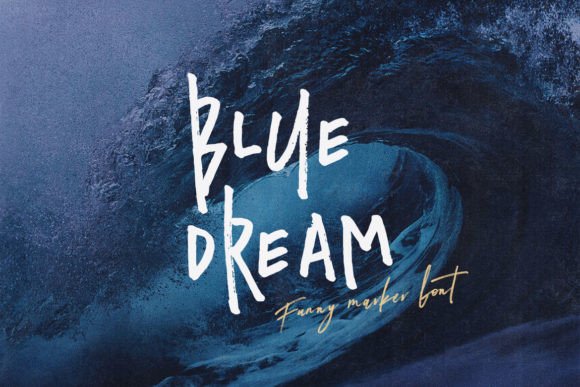
Introducing Blue Dream Font: The Ultimate Font for Unleashing Your Artistic Creativity
Prepare to dive into a world of boundless creativity with Blue Dream Font, the sans serif masterpiece crafted by JumboDesign. This captivating font is a true testament to the power of typography, boasting a unique style that will transform your designs into captivating works of art.
Escape the mundane and embrace the extraordinary with Blue Dream Font. Its playful and funky vibe is an instant mood booster, injecting life and energy into every project you undertake. Whether you're creating grunge designs that ooze attitude or artistic masterpieces that speak to the soul, Blue Dream Font will elevate your vision and leave your audience spellbound.
With its inherent versatility, Blue Dream Font seamlessly adapts to a wide range of creative endeavors. From T-shirts that radiate personality to posters that demand attention, this font will make your designs shine brighter than ever before. Let your imagination run wild as you explore the endless possibilities that await.
Don't settle for ordinary when you can unleash the extraordinary. Embrace Blue Dream Font and embark on a typographic adventure that will ignite your passion and leave your designs forever changed.